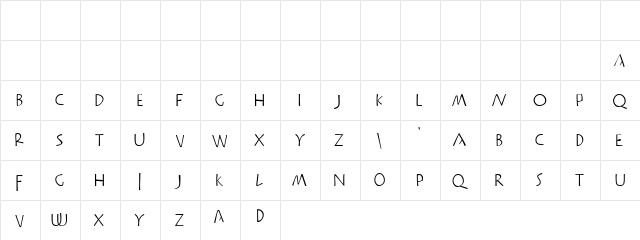
Praitor Regular
Design Context for Praitor Typeface
Praitor is a composed and adaptable typeface that performs quietly and consistently across a wide range of design contexts.